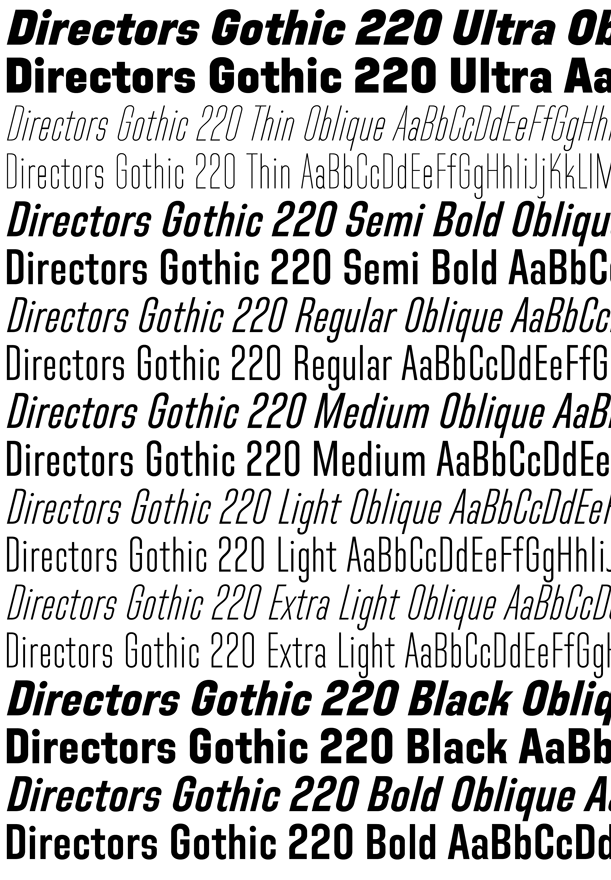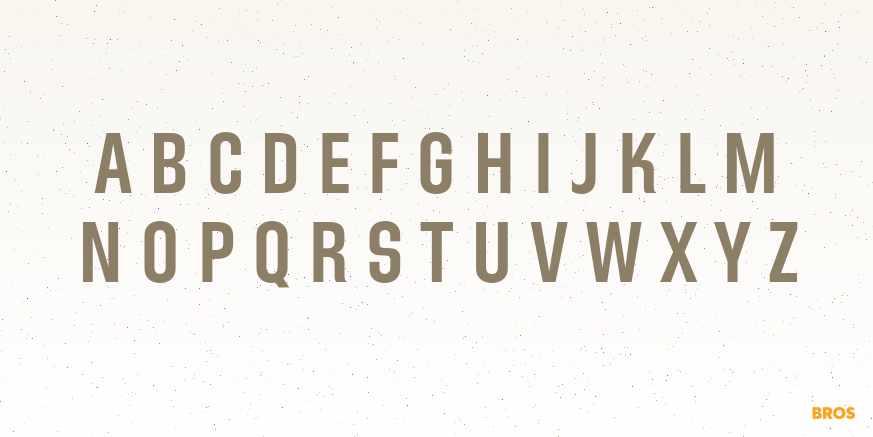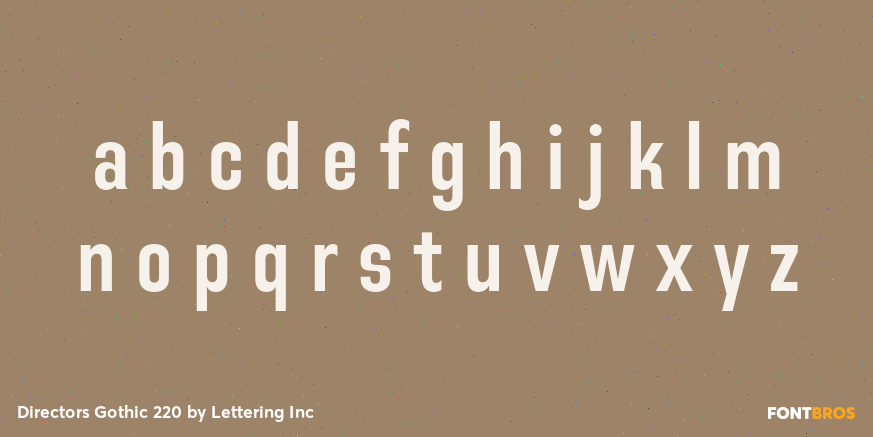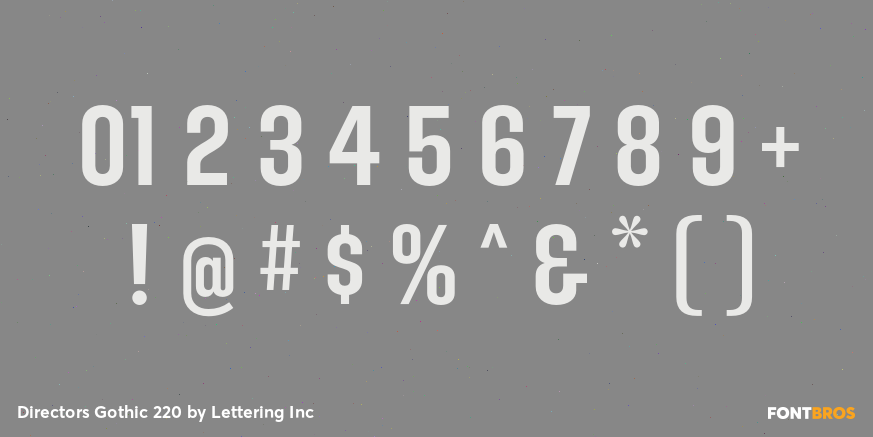
Directors Gothic 220
Font Family by Lettering Inc
Handcrafted by Lettering Inc as part of its core library of typefaces in the 1930s, Directors Gothic was dramatically expanded throughout the lifetime of the company and remains a timeless classic. Inspired by the Art Deco movement popular at the time of its creation, Directors Gothic was designed with an eye toward expanded utility for use in advertising headline and smart corporate materials. Directors Gothic was painstakingly developed from the original font glass masters from the 1940s and includes a full international character compliment, automatic fractionals, ordinals, and an impressively large assortment of alternate characters in dynamic OpenType format.